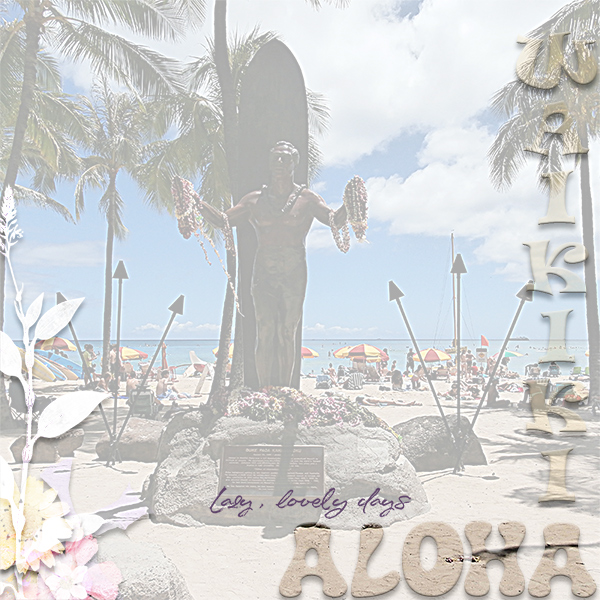
Challenge #3 Font
WAIKIKI
Font - Synthemesc
Font - Ravie
Now that is different, Love that you have dropped the opacity of everything else but kept it where the title is.
I love that the focus is on the text and title on your beautiful page! I miss a punctuation or quotation mark in another font for this Challenge!